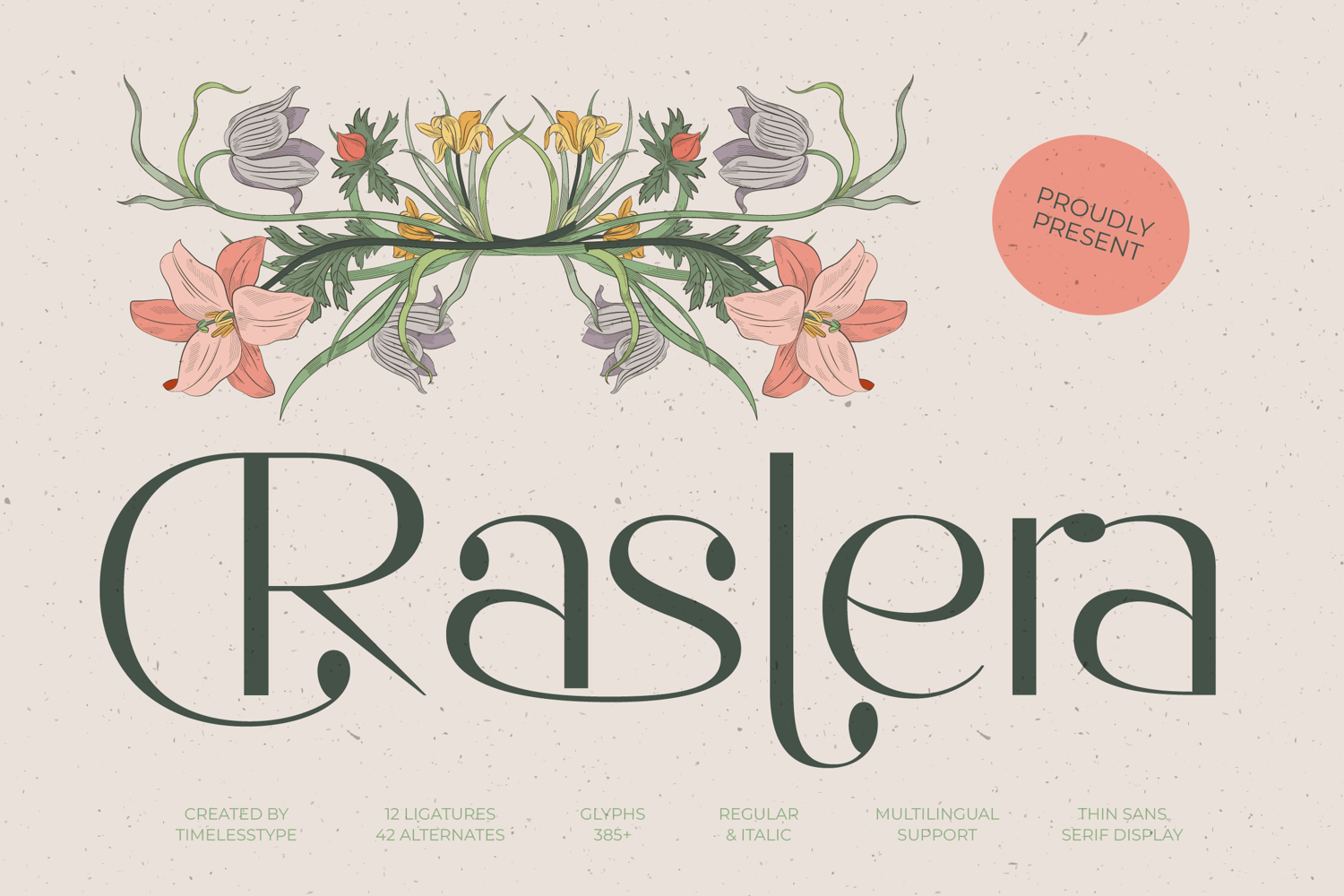
Raslera - Thin Sans Serif Display
Raslera
Raslera Italic
Raslera - Thin Sans Serif Display, a striking typeface meticulously crafted for high-end visual communication. This font merges the legibility of a thin sans serif structure with the organic, flowing elegance characteristic of the Art Nouveau movement. Its high-contrast strokes and delicate curves create an immediate sense of refinement, making it an essential tool for designers seeking to convey timeless luxury and creative distinction in their work.